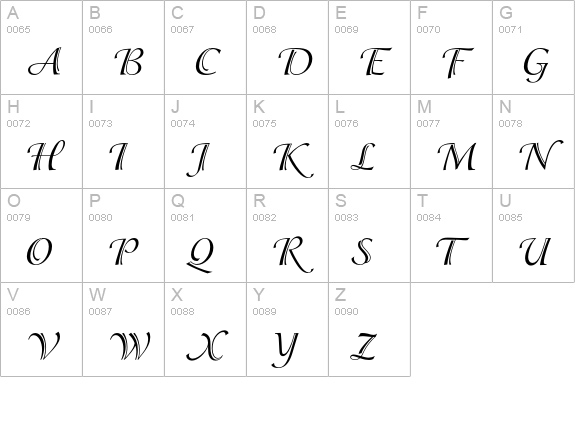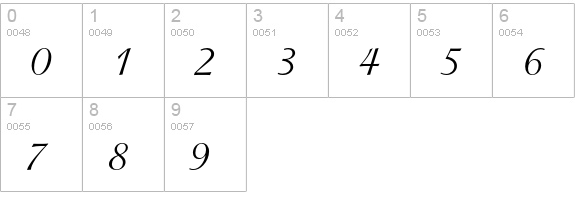
IsadoraICG Font Details
IsadoraICG font is a stunning display typeface that exudes elegance and sophistication. Its intricate letterforms and fine lines make it a perfect choice for projects that require a touch of class. This font is not only visually appealing but also highly versatile, thanks to its wide range of glyphs and ligatures. With its unique design, IsadoraICG font can effortlessly elevate any design, whether it's for a logo, packaging, or editorial layout. One of the best things about IsadoraICG font is that it is free! That's right, this beautiful typeface is freely available to download at FontsMarket.com. This means that you can enhance your designs without having to worry about breaking the bank. Whether you are a professional designer or just someone looking to add a touch of style to your personal projects, IsadoraICG font is the perfect choice. Its timeless beauty and free availability make it a must-have for any creative individual. So why wait? Download IsadoraICG font today from FontsMarket.com and take your designs to new heights of elegance and sophistication. Don't miss out on this amazing opportunity to enhance your creativity with a free and stunning typeface.